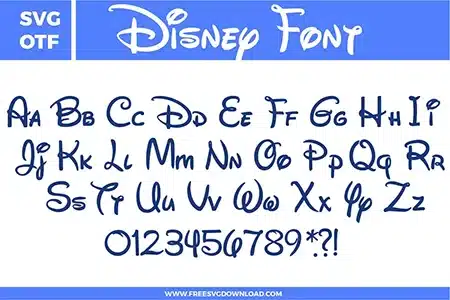
Disney Font Free SVG File
This Disney Font free svg files collection features a complete uppercase and lowercase alphabet Aa-Zz, numbers 0-9, and punctuation marks. The design is presented in a classic navy blue color, showcasing the iconic, whimsical script with distinct loops and stylized flourishes associated with world-famous animation branding. This high-quality digital download is perfect for creating personalized magical-themed crafts and custom gifts.
• Disney Font SVG: Full alphabet, number, and punctuation font preview in a flowing whimsical script style with dark blue lettering, tall narrow strokes, curled terminals, and several characters shaped with signature fairy-tale inspired loops and swashes.